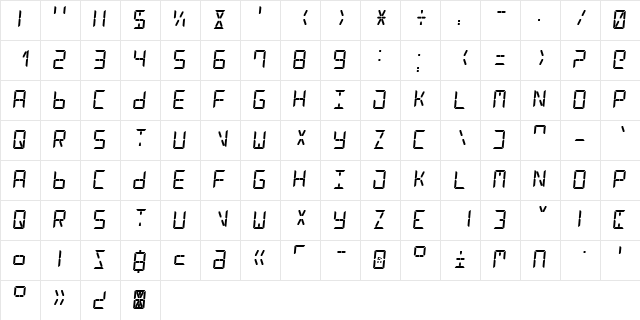
Digital Counter 7 Italic
| Foundry | Style-7 |
| Designer | Sizenko Alexander |
Design Context for Digital Counter 7 Typeface
Digital Counter 7 channels digital-age aesthetics through its sharp, structured letterforms — ideal for brands that want to signal innovation. The dynamic lean of this cut emphasises speed and emphasis in any layout.